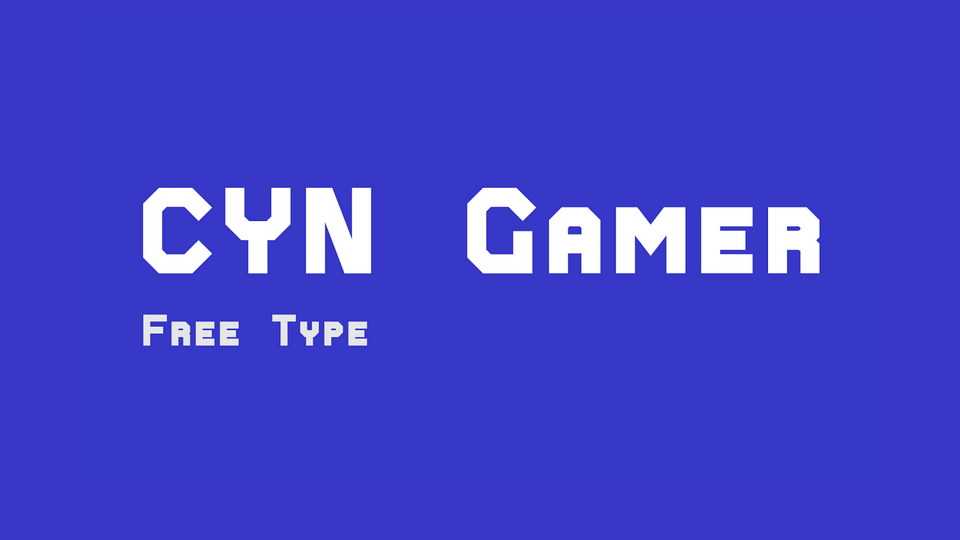
Download CYN Gamer font, a bold geometric typeface with grid based proportions and angular cuts. CYN Gamer font merges a strong look and style together and is perfect for impact and technical feel.